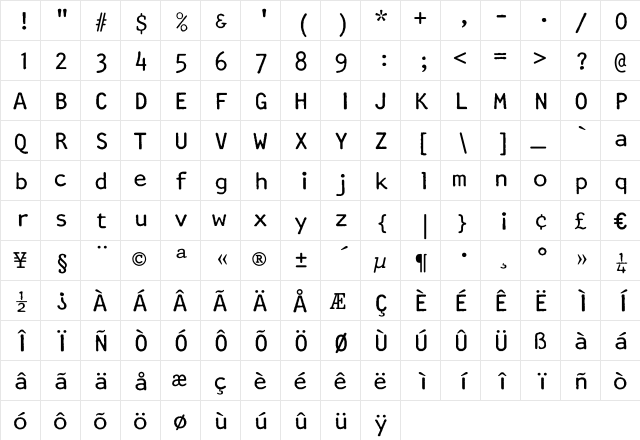
Artisan12 Regular
| Foundry | Volker Busse |
| Designer | Volker Busse |
Design Context for Artisan12 Typeface
Artisan12 is a composed and adaptable typeface that performs quietly and consistently across a wide range of design contexts.